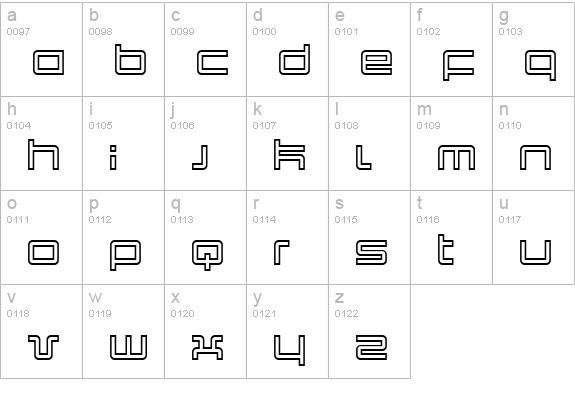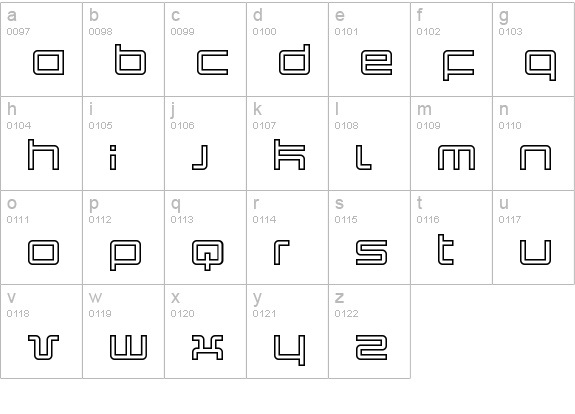
Quark Outline font is a stunning display typeface that combines elegance and modernity. With its sleek and clean lines, this font is perfect for creating eye-catching designs and captivating headlines. The bold and distinctive outline of each letter adds a unique touch to any project, making it stand out from the crowd. What sets Quark Outline font apart is not just its striking appearance, but also the fact that it is available for free. That's right, you can download this amazing font without spending a dime. Thanks to FontsMarket.com, you can easily access and enjoy the beauty of Quark Outline font with just a few clicks. Whether you're a professional designer looking to enhance your portfolio or an amateur enthusiast experimenting with typography, Quark Outline font is a must-have addition to your font collection. Its versatility allows it to be used in various design projects, including logos, posters, packaging, and more. Quark Outline font is designed with meticulous attention to detail, ensuring that each character is perfectly balanced and aesthetically pleasing. Its clean shapes and smooth curves make it not only visually appealing but also highly readable, even at smaller sizes. With Quark Outline font, your designs will exude sophistication and professionalism. Its sleek and modern look will instantly grab the attention of your audience, leaving a lasting impression. Whether you're creating a magazine layout, a website header, or a branding project, this font will elevate your work to a whole new level. So why wait? Don't miss out on the opportunity to enhance your design arsenal with Quark Outline font. Head over to FontsMarket.com and download it for free today. Experience the power of this remarkable font and unleash your creativity like never before.